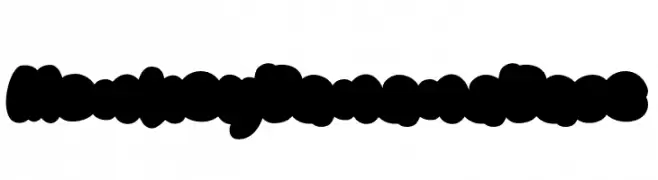
( Fonts by Daddi Daryawan )
A bold, playful font with rounded, bubbly characters.
A whimsical and artistic font with dynamic curves and angles.
A vintage typewriter font with a bold, monospaced design and textured appearance.
( Cre8or Artwork - Lukas Kohler )
A bold, geometric font with a futuristic and angular design.
( Zetafonts - www.zetafonts.com )
A bold, rounded font with a playful and friendly style.
( Chris Vile - www.chrisvile.com )
A bold, distressed font with a grunge, decayed texture and sharp descenders.
( Fonts by Adien Gunarta - fontasticindonesia.blogspot.com )
A bold, geometric font with sharp angles and a futuristic style.
A bold, rugged outline font with jagged edges and a textured appearance.
( Fonts by Hatf Type )
A whimsical, cursive font with artistic loops and swirls, perfect for creative projects.